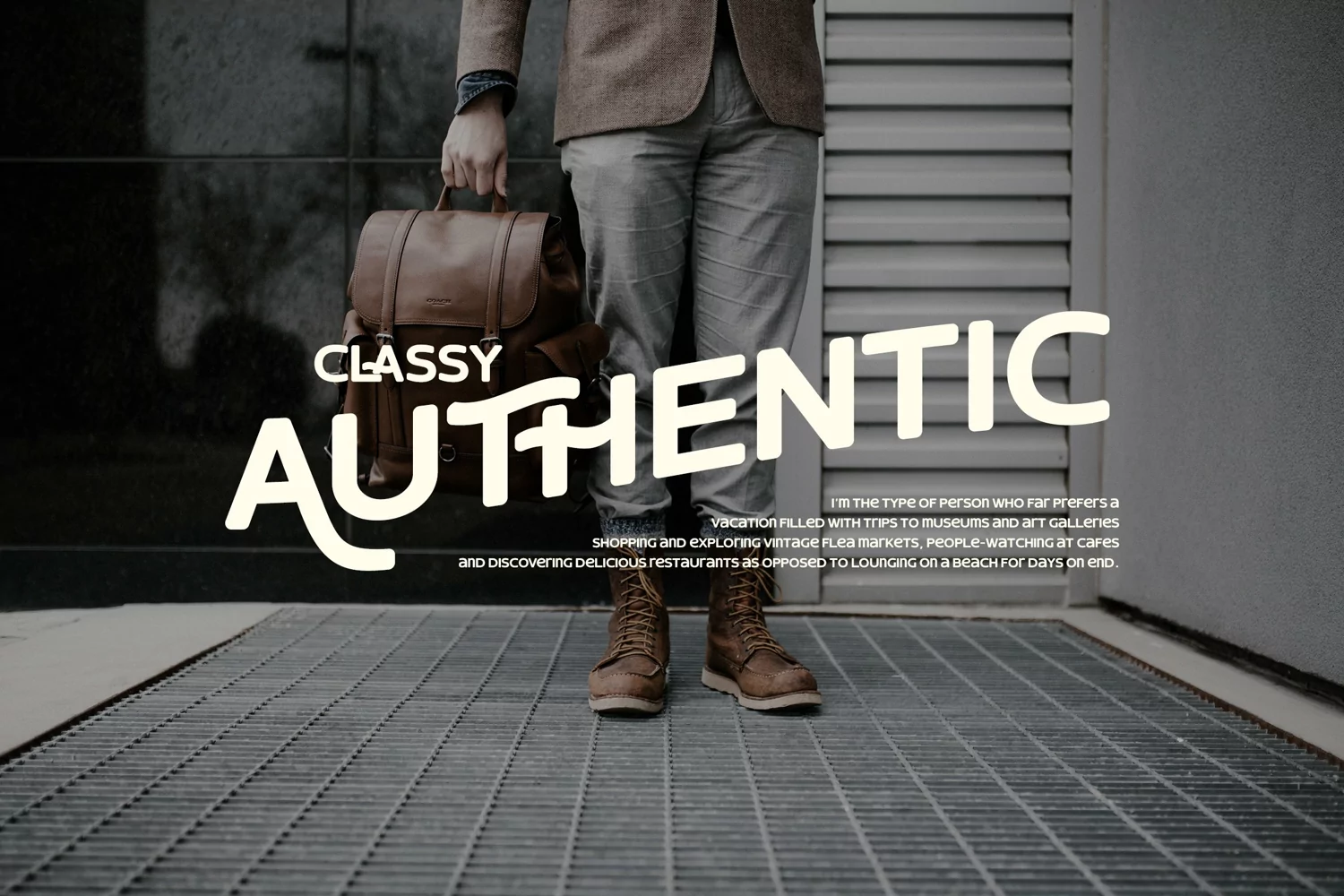
Thorce Rounded Sans Font. Thorce Sans Font is perfectly suited to branding, logos, magazines, films, website, headlines, titles, captions, games, apps, posters, t-shirts and more.This font available: